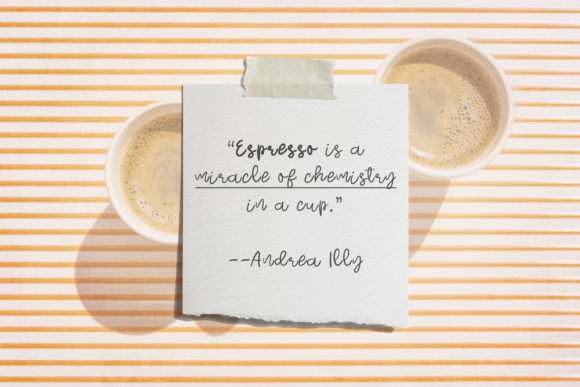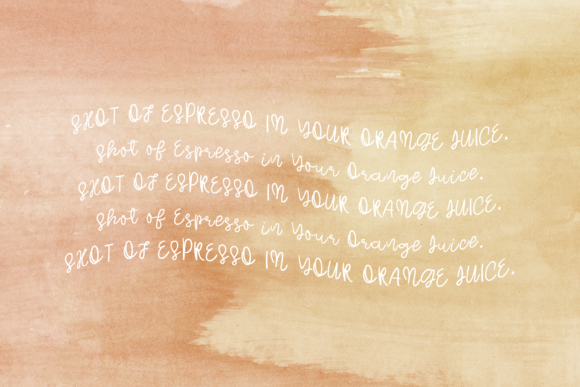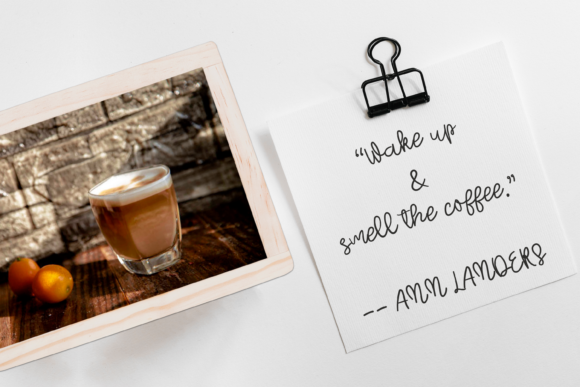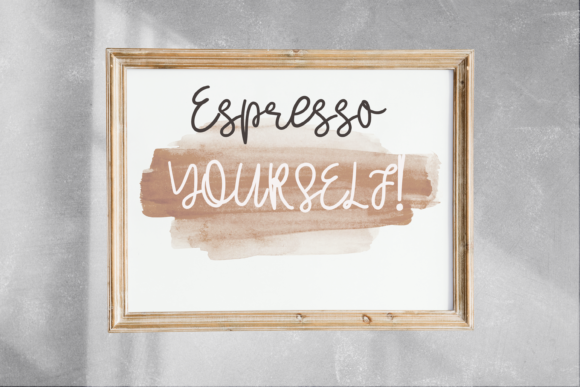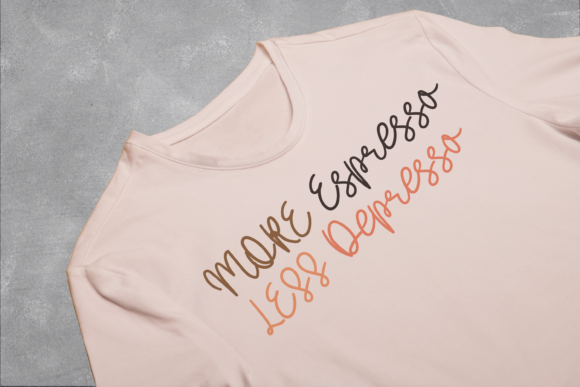
Introduction to Orange Espresso Font
The Orange Espresso is a messy yet extremely cute handwritten font.
Get inspired by its sweet and trendy feel and use this font to turn any design project into a standout .
Key Features of Orange Espresso Font